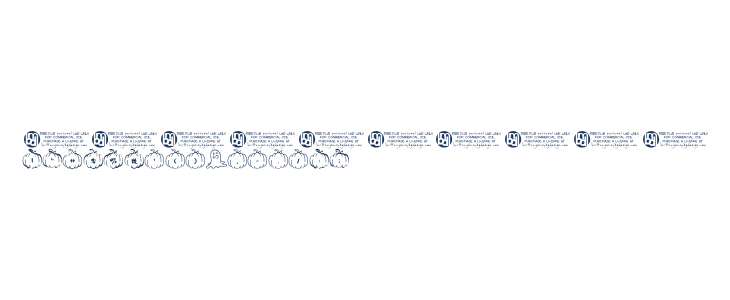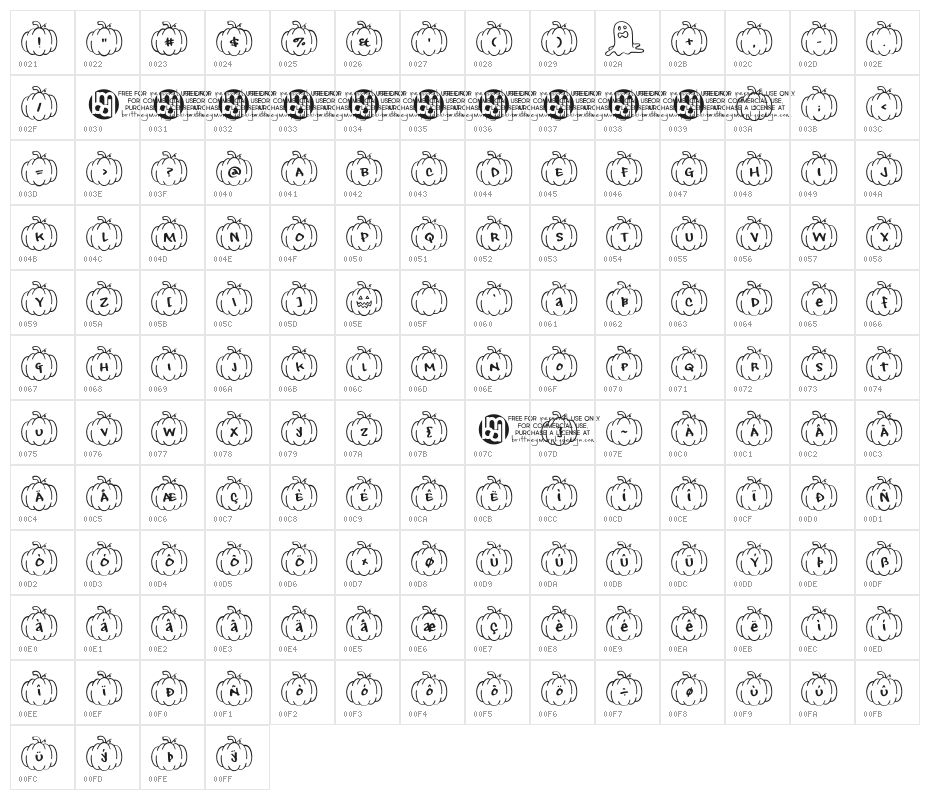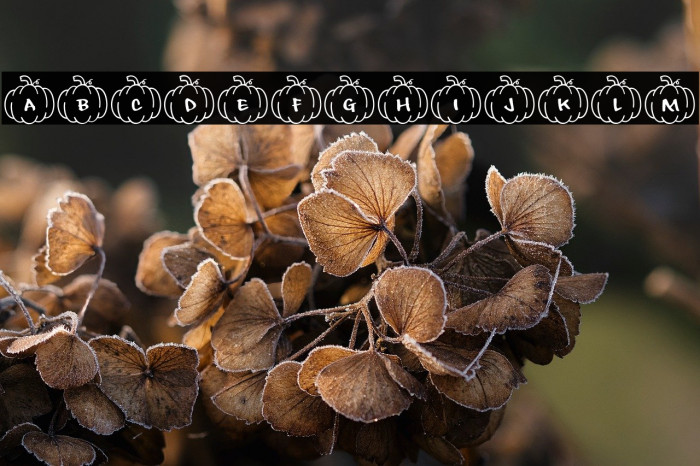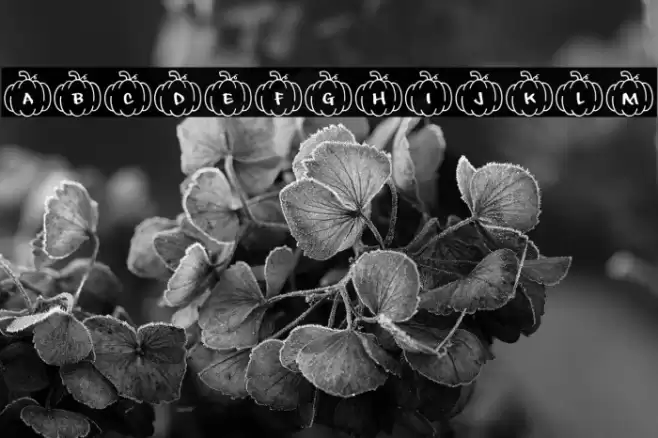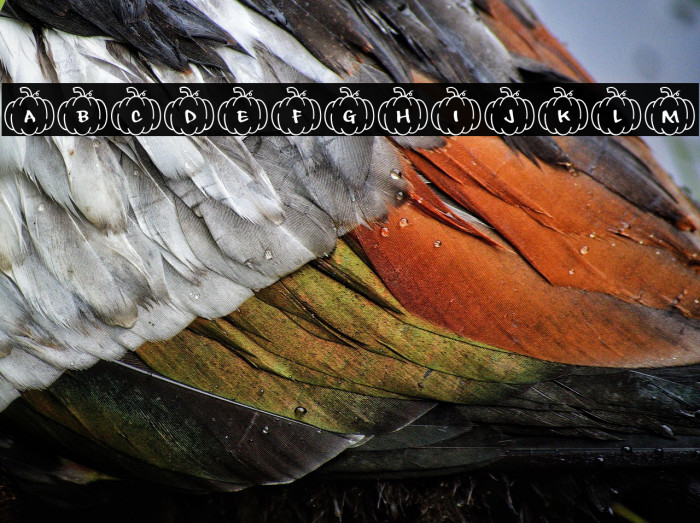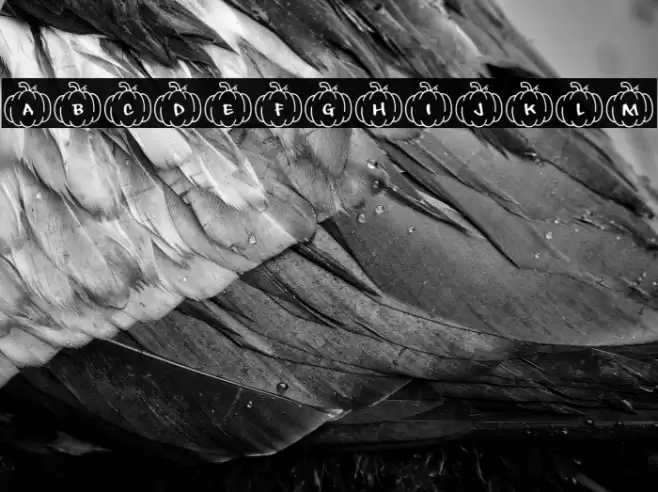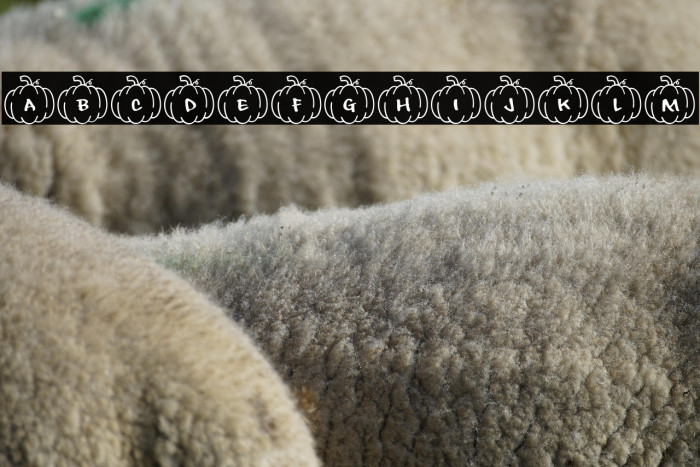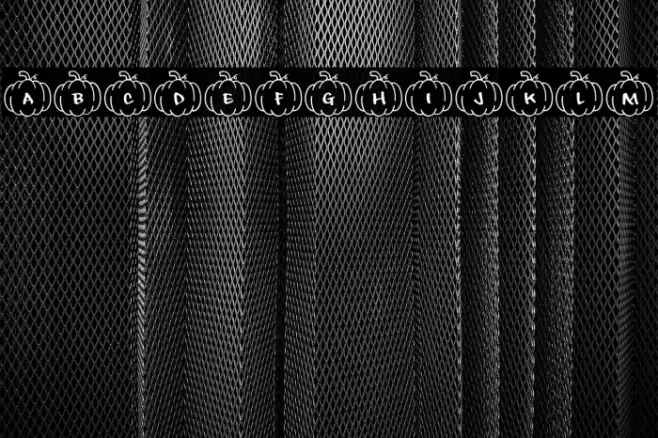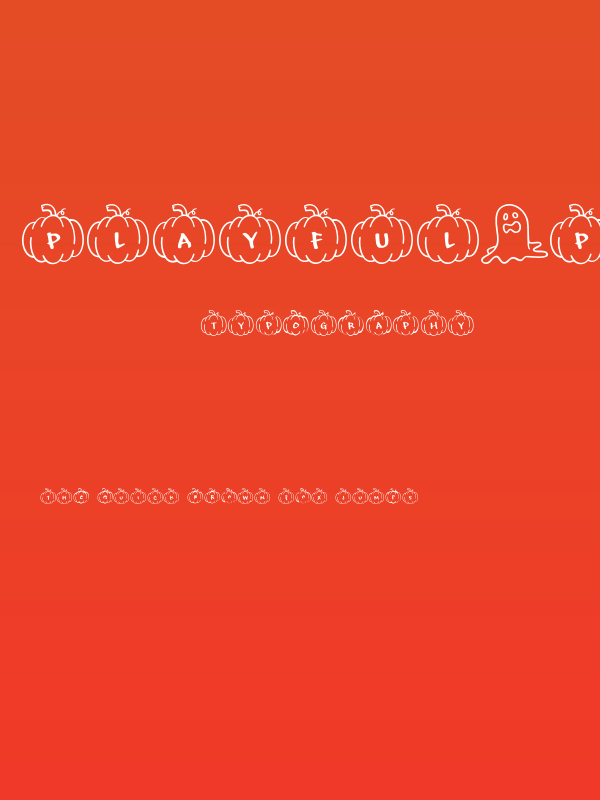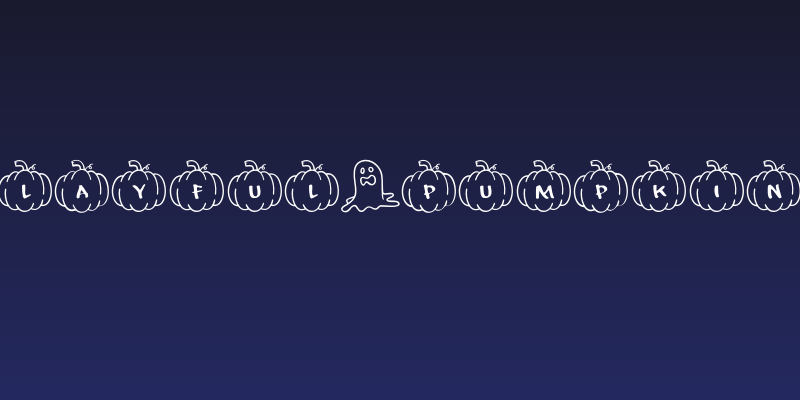
Playful*Pumpkins Font
Playful*Pumpkins Description
This whimsical and playful font features each character encased within a stylized pumpkin shape, adding a festive and fun element to the design. The letters are bold and cartoonish, with a hand-drawn quality that enhances their charm. The pumpkins are outlined with a smooth, continuous line, and each has a small stem on top, contributing to the overall playful theme. The font includes uppercase and lowercase letters, numbers, and a selection of special characters, all maintaining the same pumpkin motif. This design is perfect for seasonal projects, especially those related to Halloween or autumn, where a lighthearted and thematic touch is desired.
| Overall Style | Playful, Seasonal, Whimsical |
| Use Case | Headlines, Logos, Seasonal Decorations |
| Proposed Projects | Ideal for Halloween-themed invitations, festive banners, children's party decorations, or any project requiring a fun, seasonal touch. |